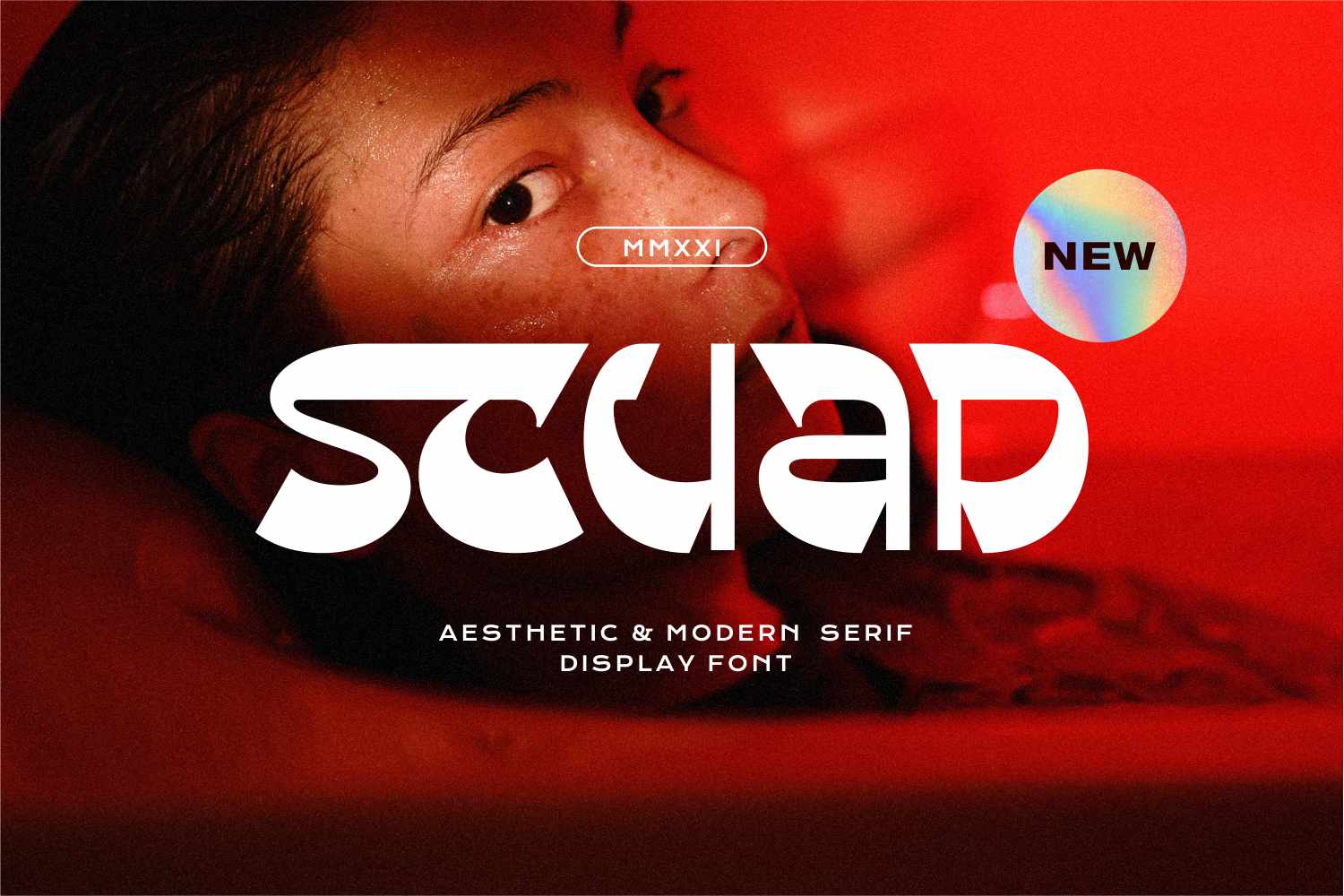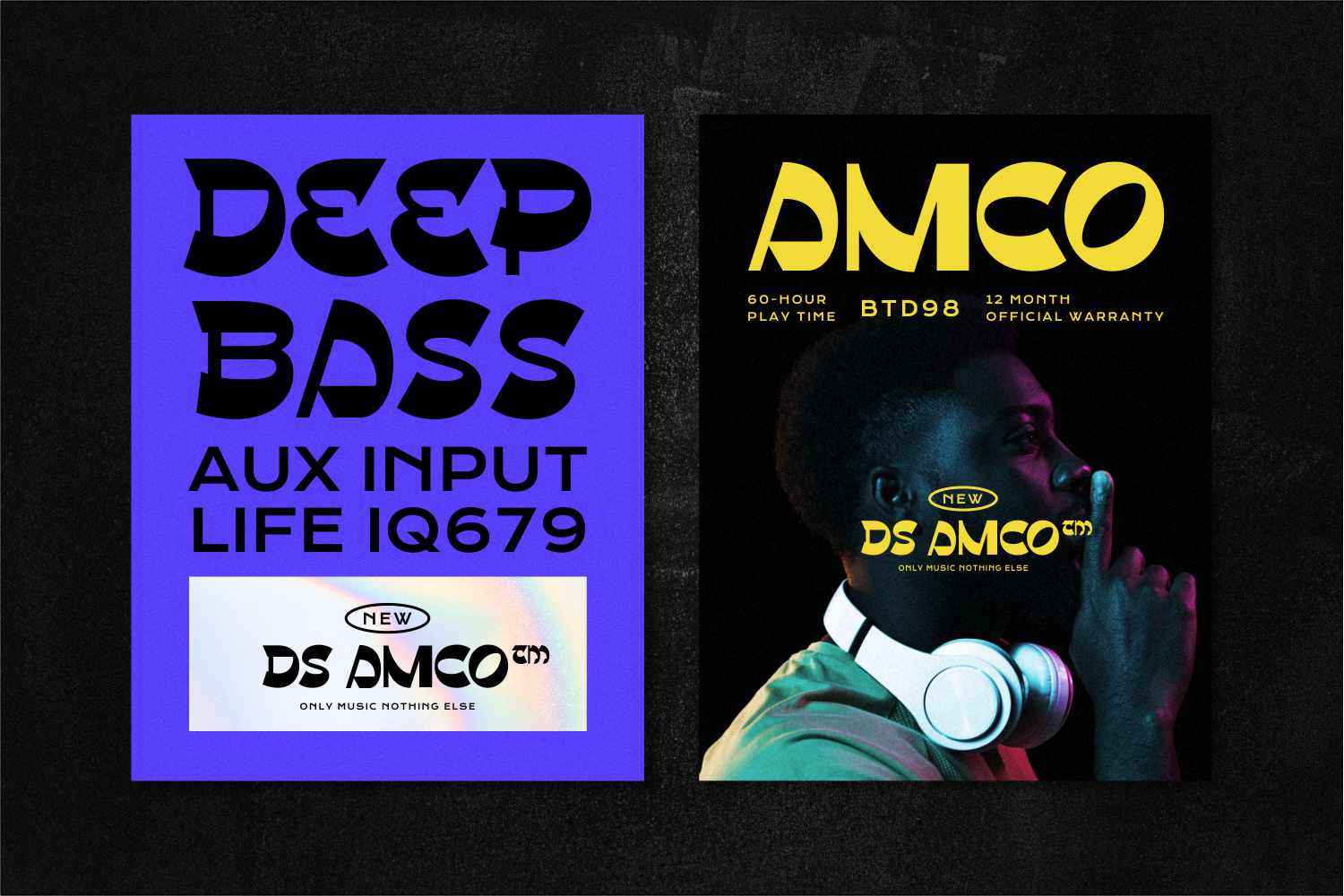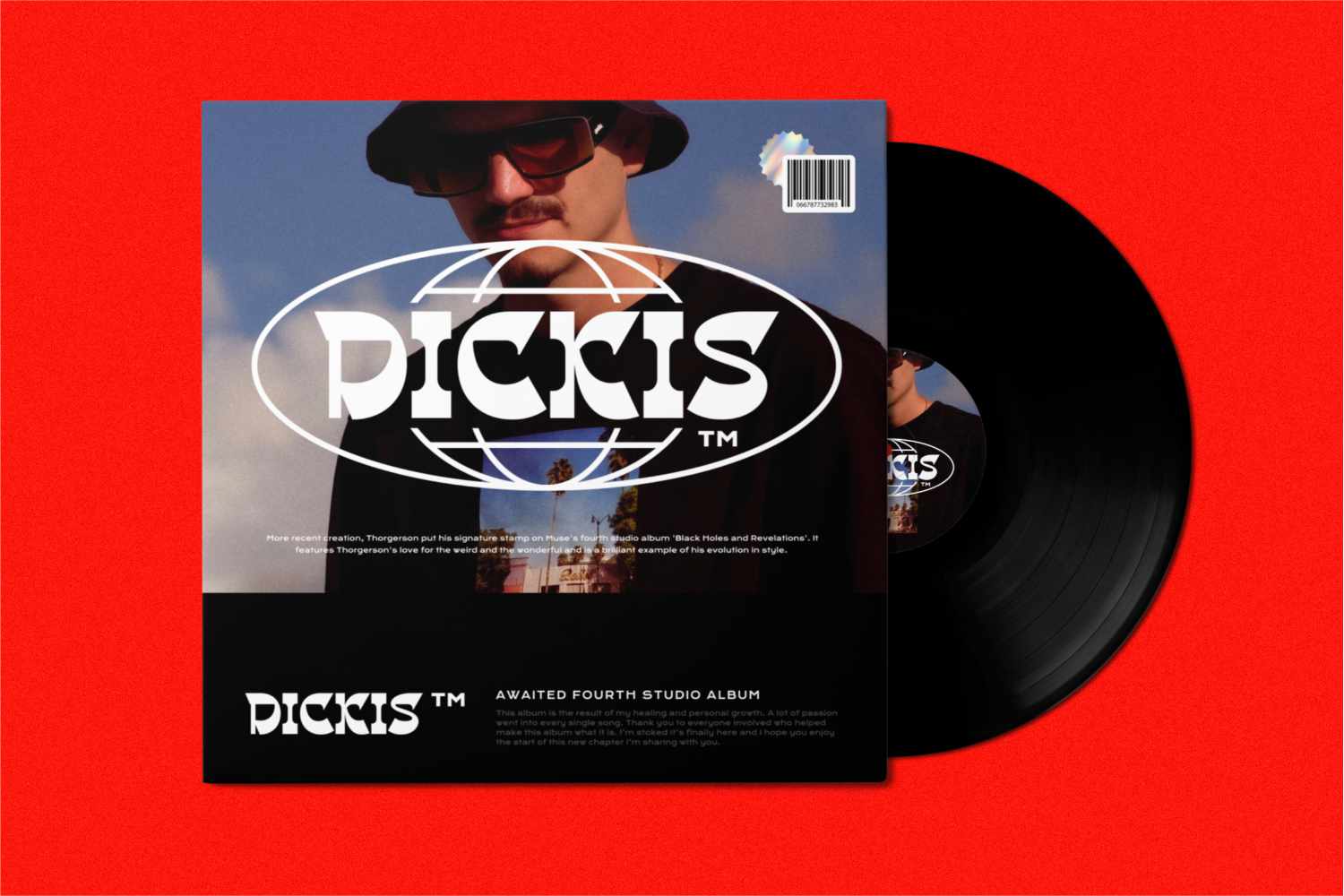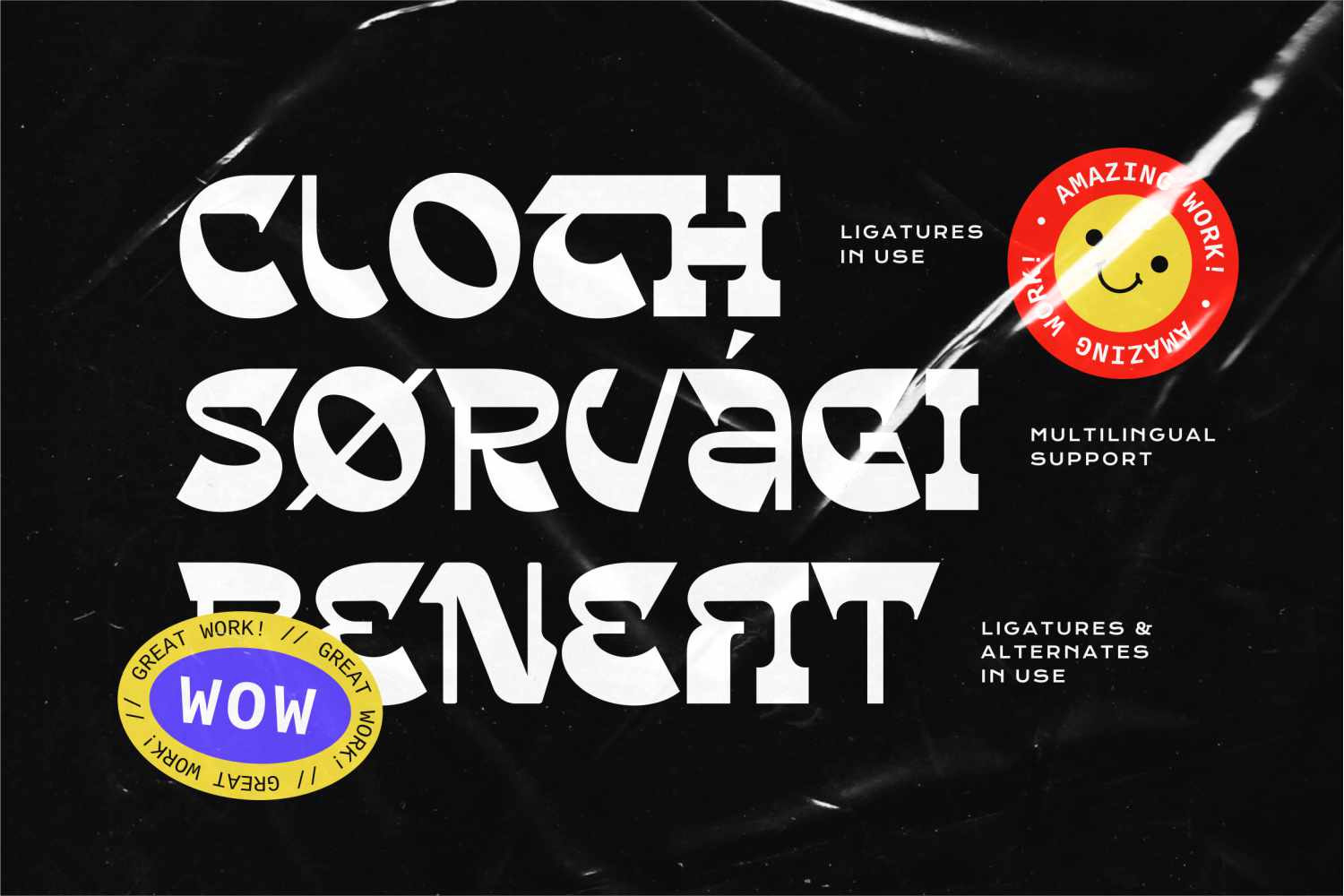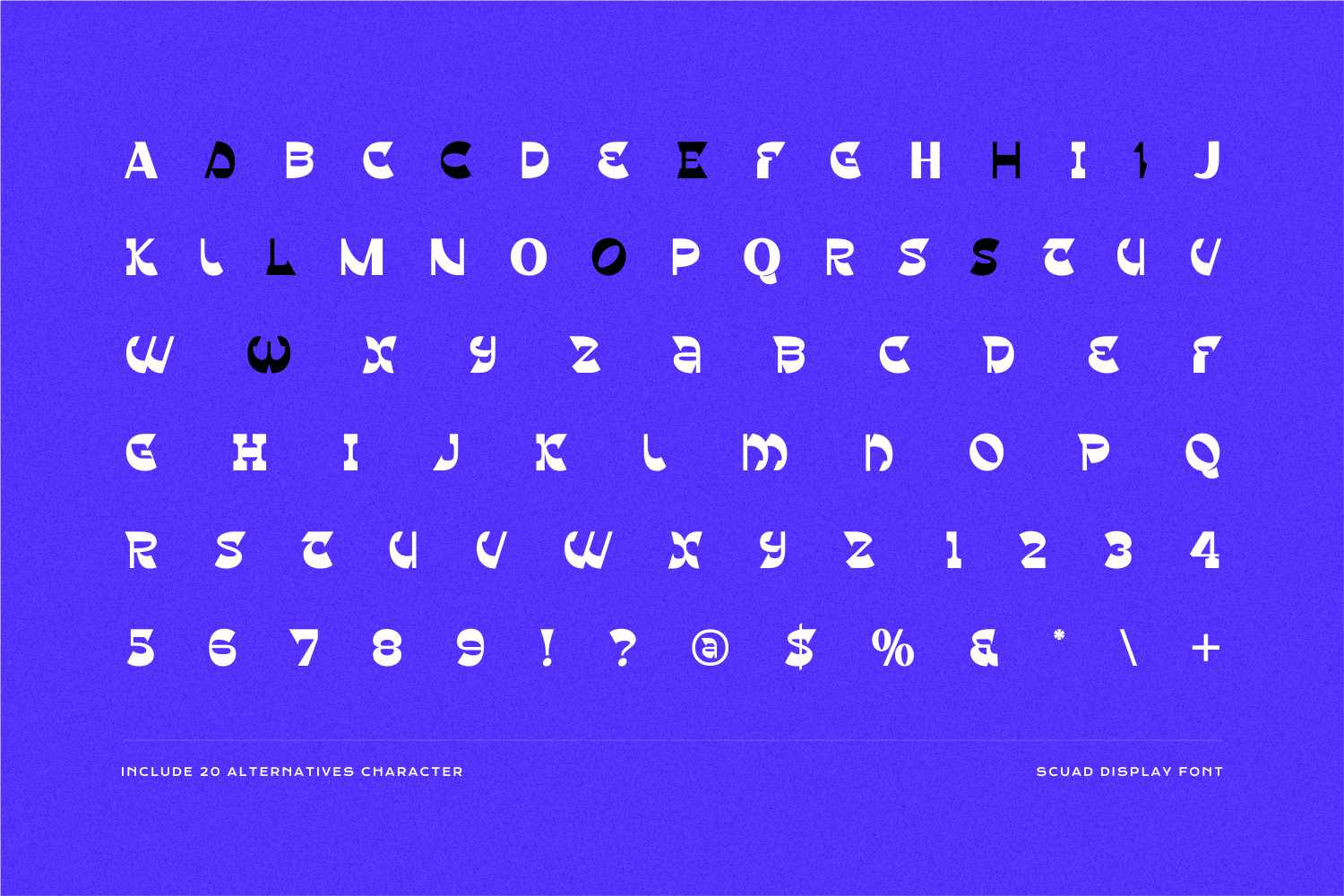
Scuad is a bold and futuristic display font designed to break convention. With its sharp angles, experimental letterforms, and modern geometric construction, Scuad offers a unique visual identity perfect for music covers, fashion branding, and digital merchandise. Each character was crafted to stand out, making this font an ideal choice for projects that demand attention and strong personality.
Equipped with 20 alternate characters, ligatures, and multilingual support, Scuad brings high flexibility to your creative workflow. Its aesthetic fusion of brutalist curves and abstract modular elements ensures it performs exceptionally well across posters, album artwork, streetwear labels, or tech event identities. Whether you aim to innovate or rebel, Scuad delivers.
Scuad